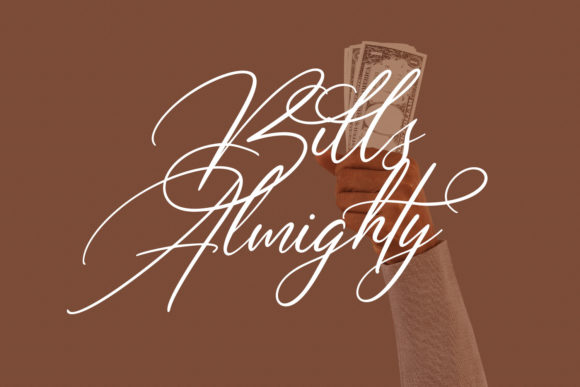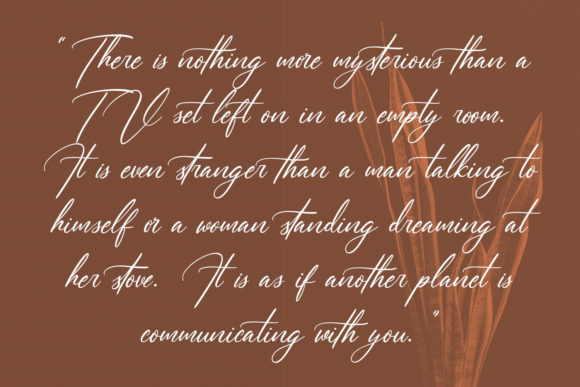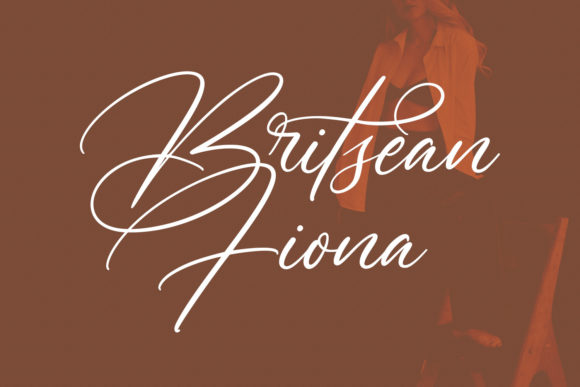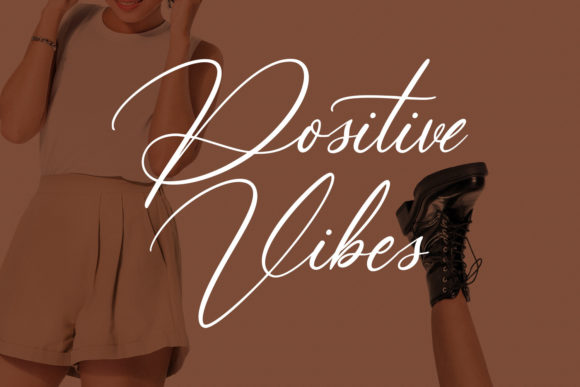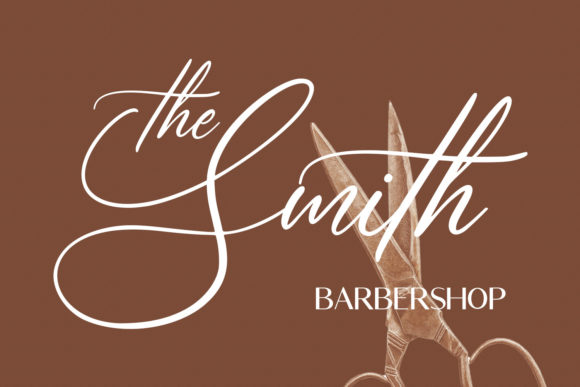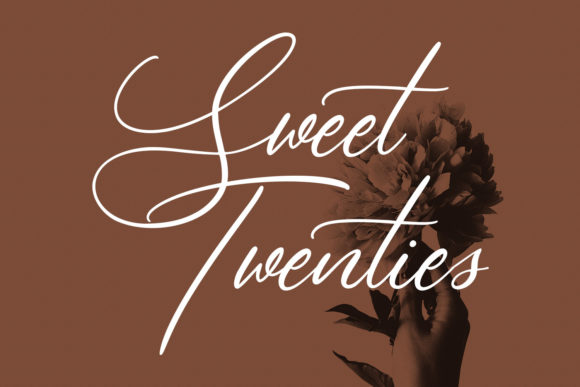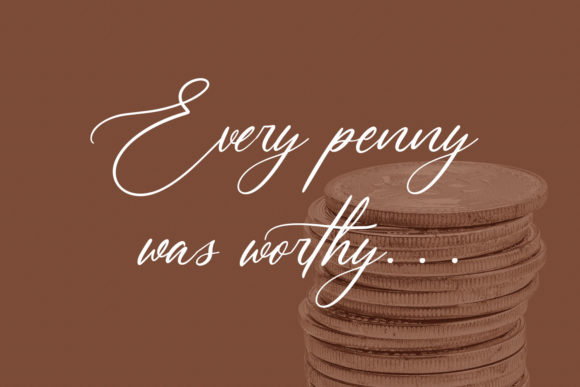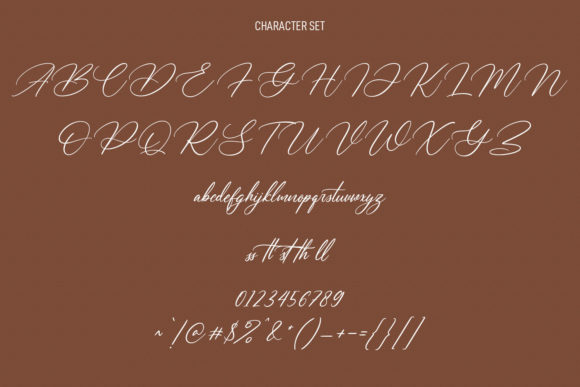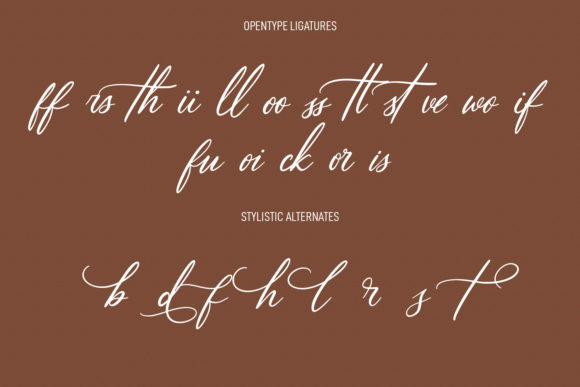
Calipatrya Signature Script Font
About Calipatrya Signature Script Font
Calipatrya Signature Script is a fancy handwritten script font. It features medium contrast strokes, fun characters, ligatures and alternates. Add it confidently to your favorite creations and let yourself be amazed by the outcome generated.